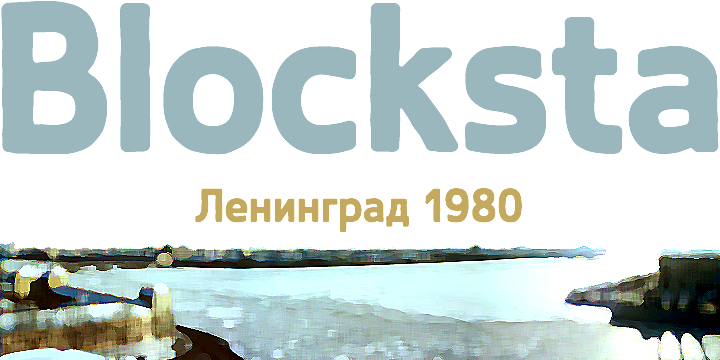
Blocksta Font is ideal for urban hip-hop labels, street art galleries, blockchain technology companies, cryptocurrency platforms, modern rap music venues, digital art studios, and contemporary urban lifestyle brands. This bold typeface embodies street culture authority and digital innovation, bringing urban authenticity and modern blockchain sophistication to any design project celebrating street art culture and cutting-edge technology convergence.
What makes Blocksta Font exciting is its dynamic fusion of street culture boldness and digital technology precision that perfectly captures the essence of modern urban innovation and blockchain revolution. The font features solid letterforms with block-inspired geometry and street-smart character details that evoke both graffiti wall art and digital block structures. Its commanding character appeals to tech-savvy urban audiences while maintaining excellent readability for both street art applications and technology platform interfaces.
The Blocksta Font family includes regular and bold weights with complementary stencil variations and urban ornamental elements. The character set features street ligatures, tech symbols, blockchain alternates, and digital decorative accents that enhance the font's contemporary appeal. Extended character support includes cryptocurrency symbols and urban culture icons for authentic street art and blockchain technology applications.
Whether you're designing urban tech brands, creating cryptocurrency marketing materials, or developing street culture content, Blocksta Font Free Download provides exceptional edge and versatility. This innovative typeface transforms ordinary text into powerful urban tech experiences that bridge street culture and digital innovation while establishing memorable brand recognition in competitive cryptocurrency and urban technology marketplaces.